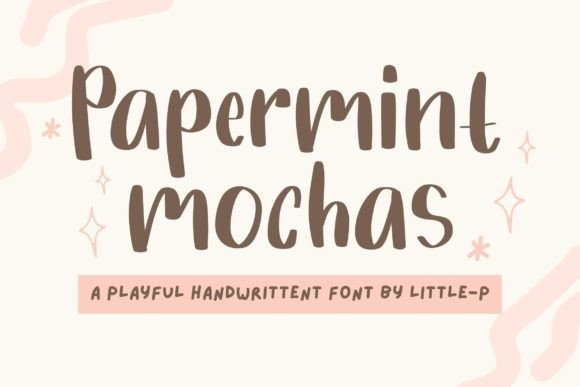
Step into a world where charm and playfulness dance hand in hand, and meet "Papermint Mochas," an enchanting handwritten font that will add an irresistible bounce to your creative endeavors. Allow your words to take on a life of their own as they don this font's unique and spirited personality.
Prepare to be captivated by the whimsical nature of "Papermint Mochas" as it breathes life into your digital products, transforming them into captivating works of art. Craft engaging digital planners that invite users into a world of imagination, where each page is a canvas for their thoughts and dreams. Unleash your creativity and design enchanting wall art that will add a touch of magic to any room, making it a space that sparks joy and wonder.
Immerse yourself in the beauty of bespoke invitations, adorned with the elegance of "Papermint Mochas." Let your invitations set the tone for unforgettable events, inviting guests into a realm of enchantment. Elevate your sublimation graphics with a touch of whimsy, making your designs stand out and leaving a lasting impression. Add a sprinkle of charm to your stickers, creating delightful additions to planners, laptops, and any surface that needs a pop of cheer.
With "Papermint Mochas," you'll transform ordinary projects into extraordinary ones, leaving a trail of smiles and awe in your wake. Embrace the magic of this font and watch as your creative visions take flight, soaring to new heights of inspiration and delight.